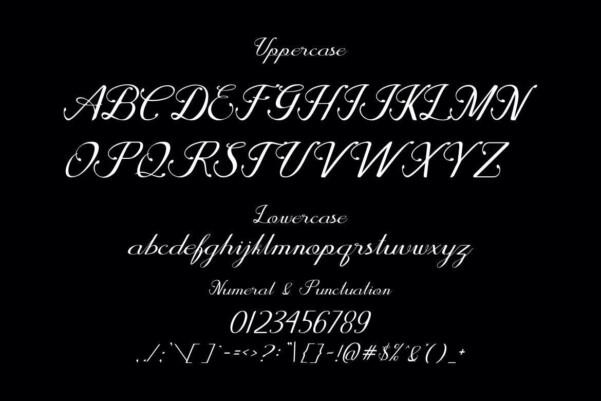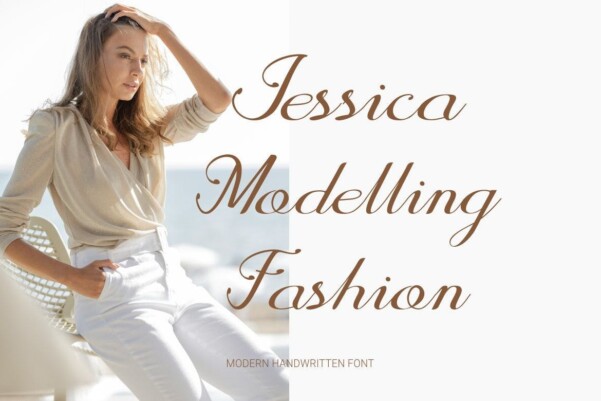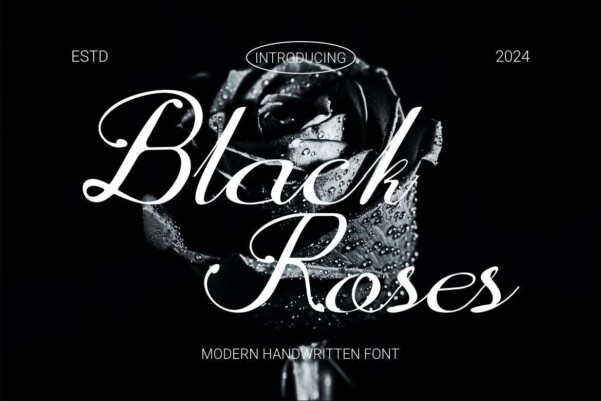
Black Roses Font
Black Roses Font, a Modern Script Font is a modern and authentic font. Perfect for the needs of professionals and product brands, this font is suitable for all branding projects such as quotes, logos, blog headers, posters, ribbons, letters, invitations, stationery , etc. Designed to be versatile and flexible, it can be used on a variety of projects and media. Extraordinary in a variety of contexts.